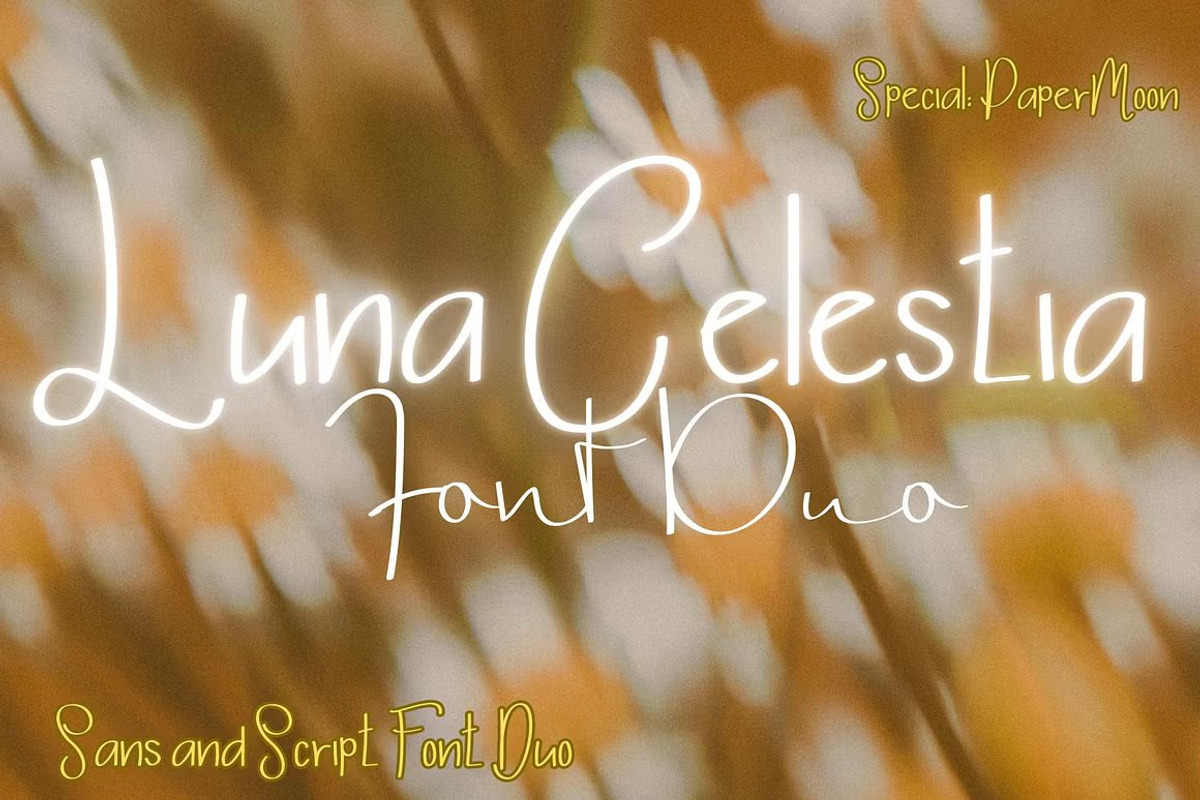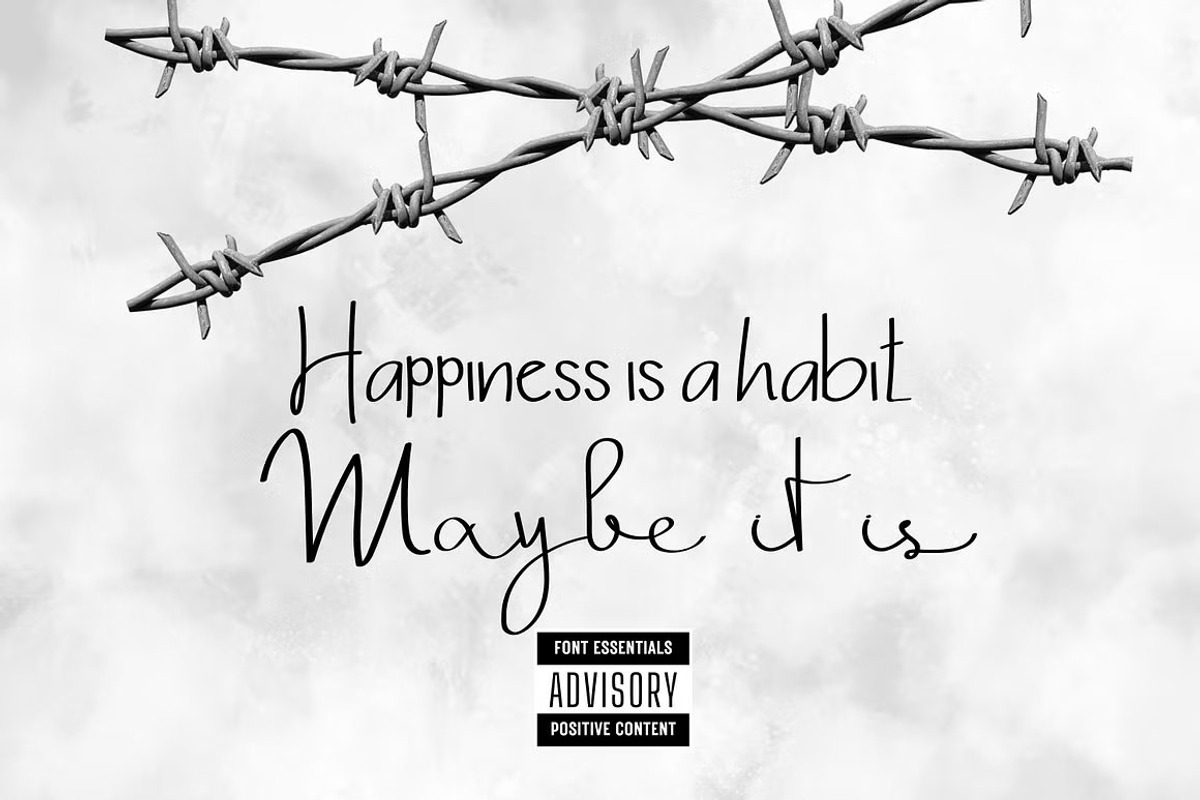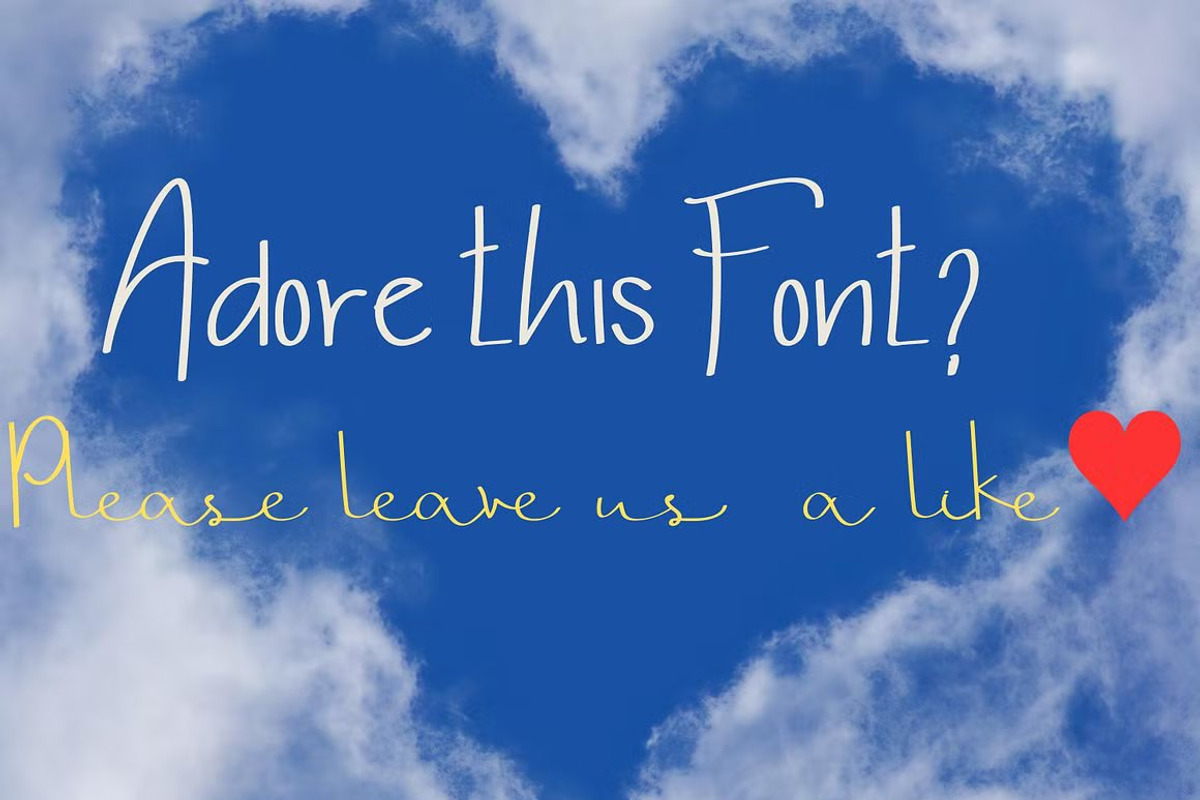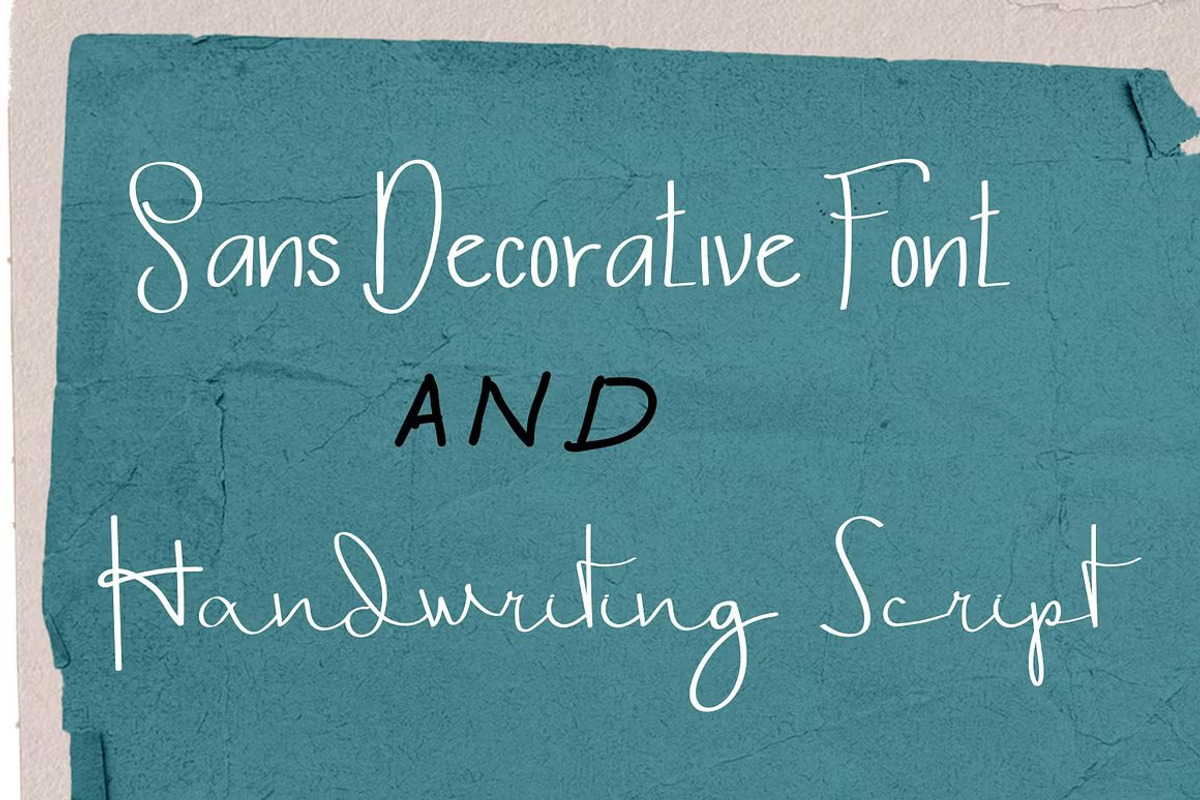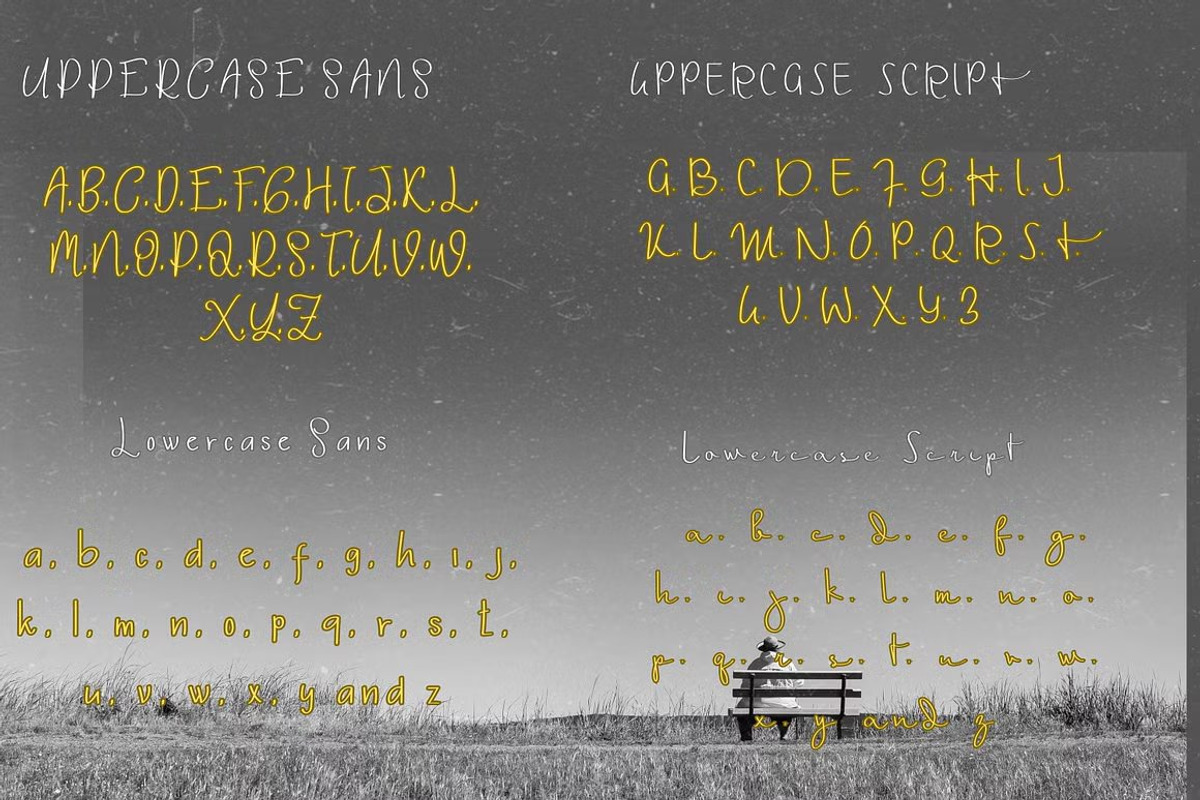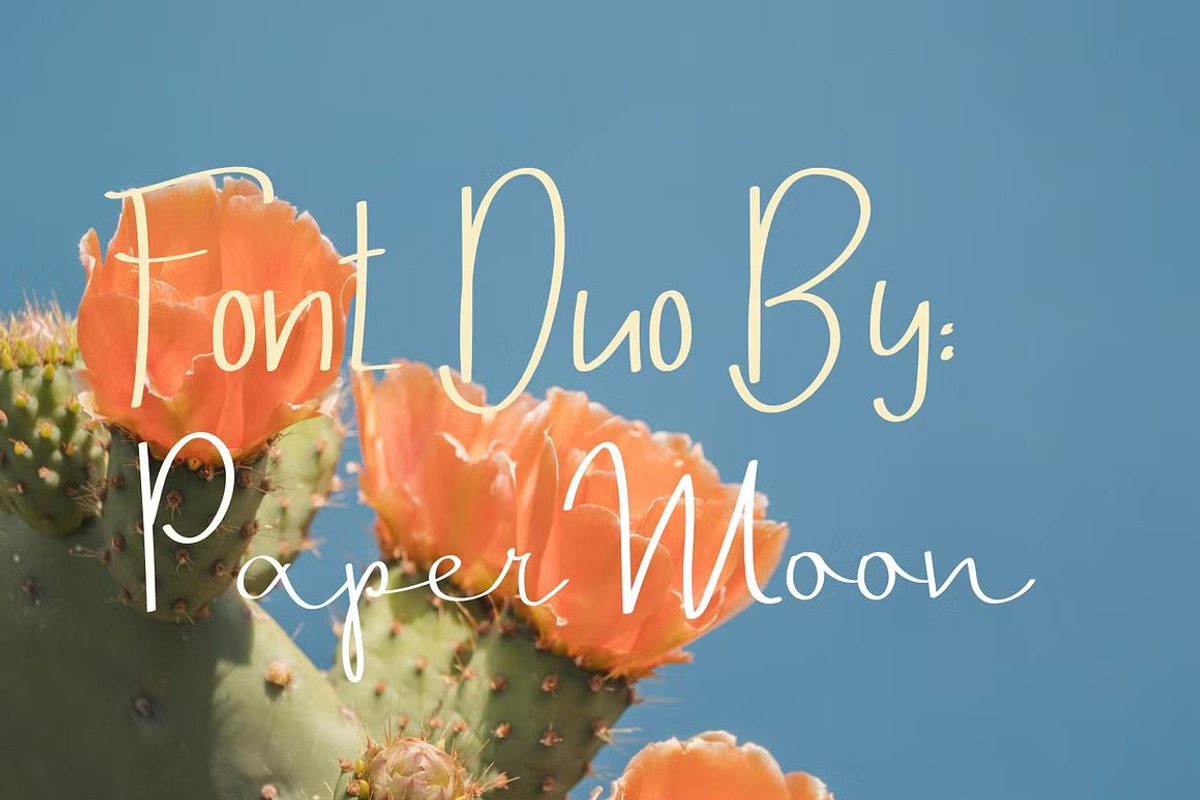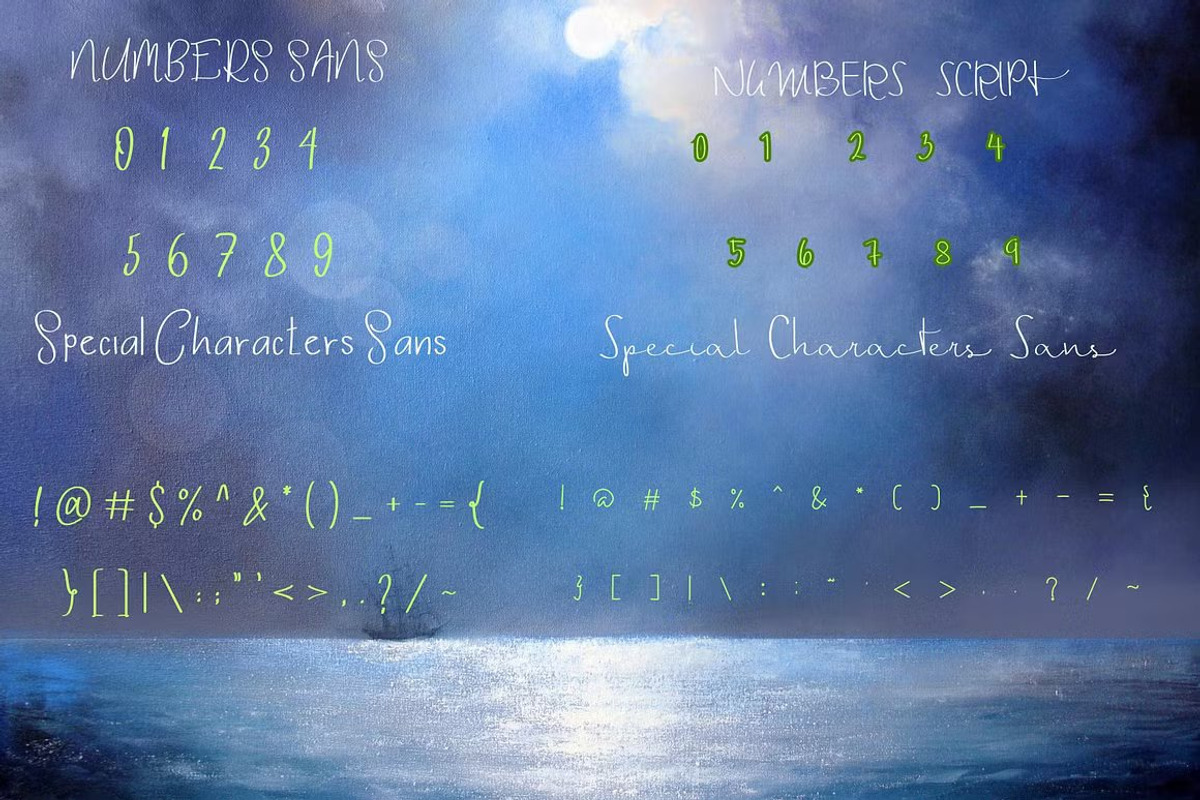
Luna Celestia: Sans and Script Duo
Introducing Luna Celestia Font Duo: Your Ultimate Typeface Pair for Versatile Design Projects
Calling all creative minds! We’re excited to unveil the Luna Celestia Font Duo, a dynamic typeface pairing designed to elevate your design toolkit. This versatile font duo includes a sleek Sans Decorative Font and an elegant Handwriting Script, perfectly crafted to complement a diverse range of projects and industries. From branding to digital marketing, Luna Celestia adapts effortlessly to your creative needs.